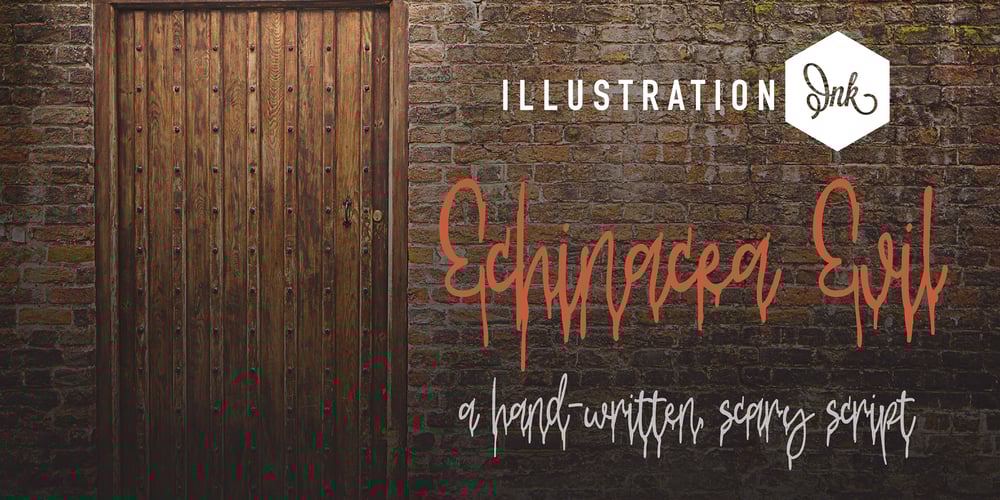
ZP Echinacea Evil Font Family was designed by Illustration Ink and published by Illustration Ink. ZP Echinacea Evil contains 4 styles and family package options. This hand-written script is very crafty, drippy, and scary and is perfect for your Halloween or haunted font projects.